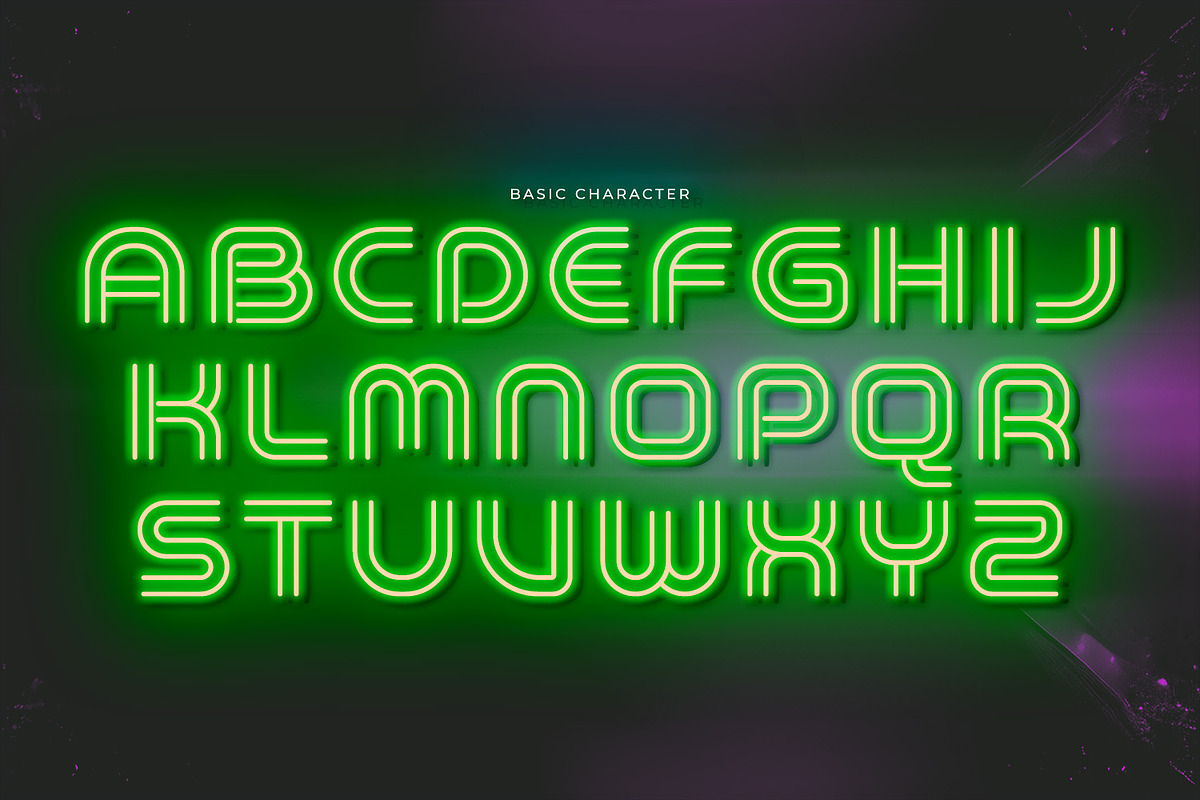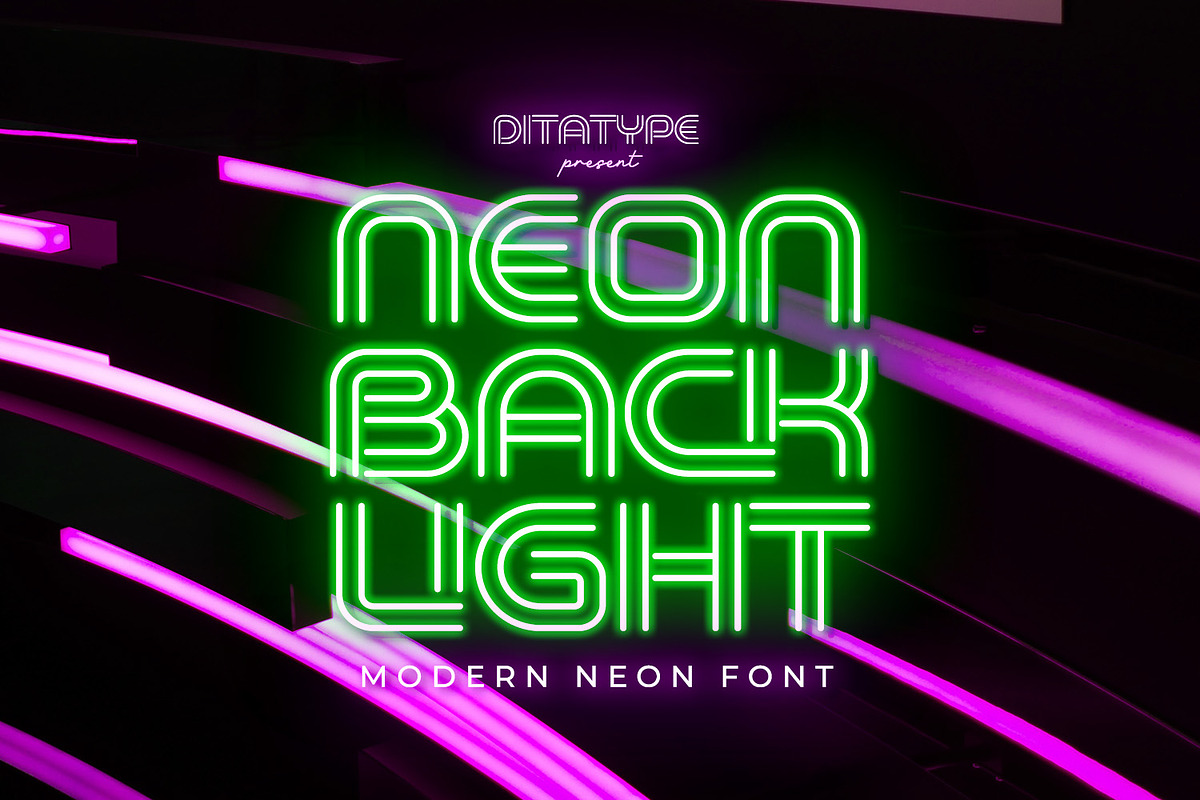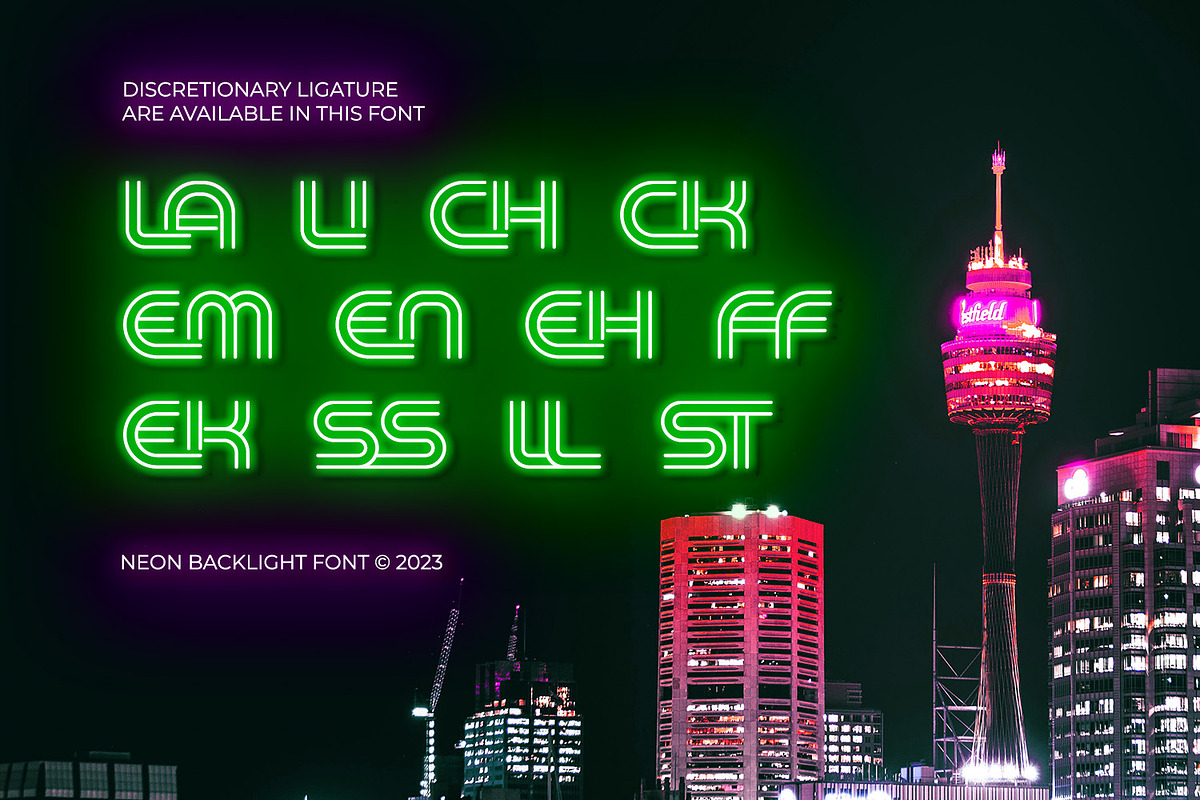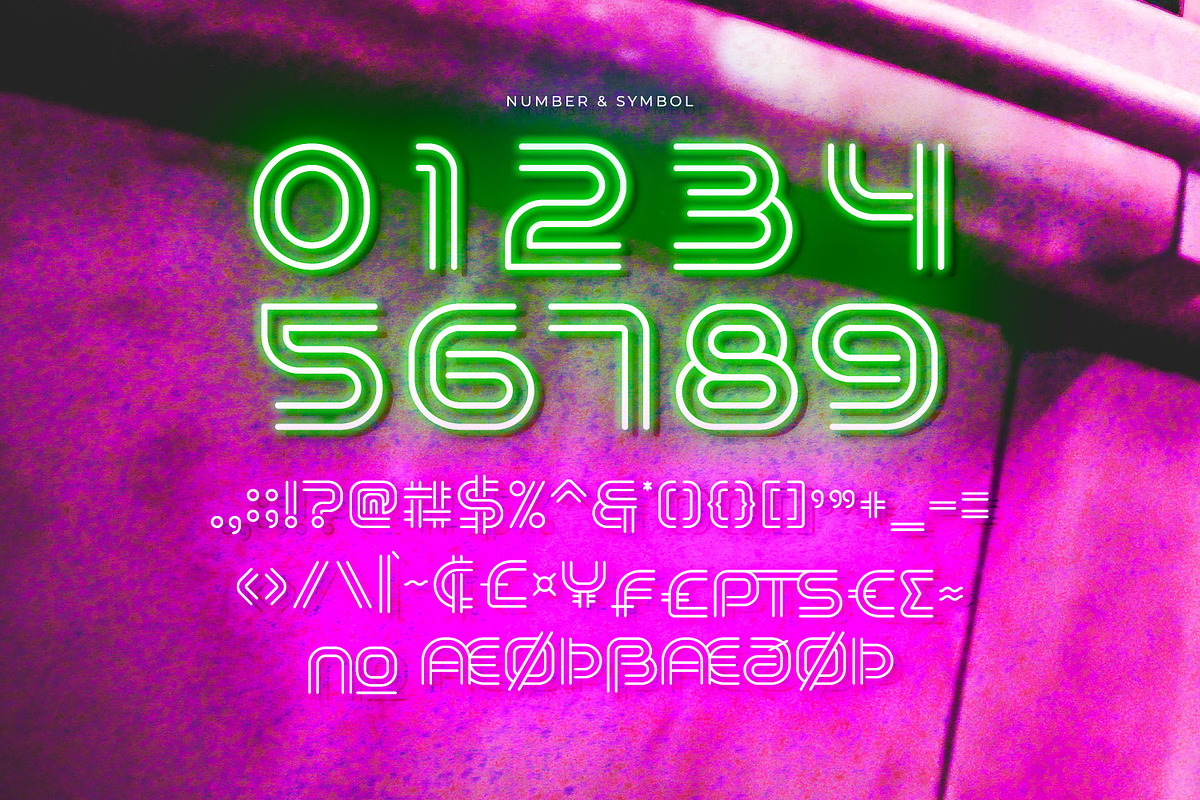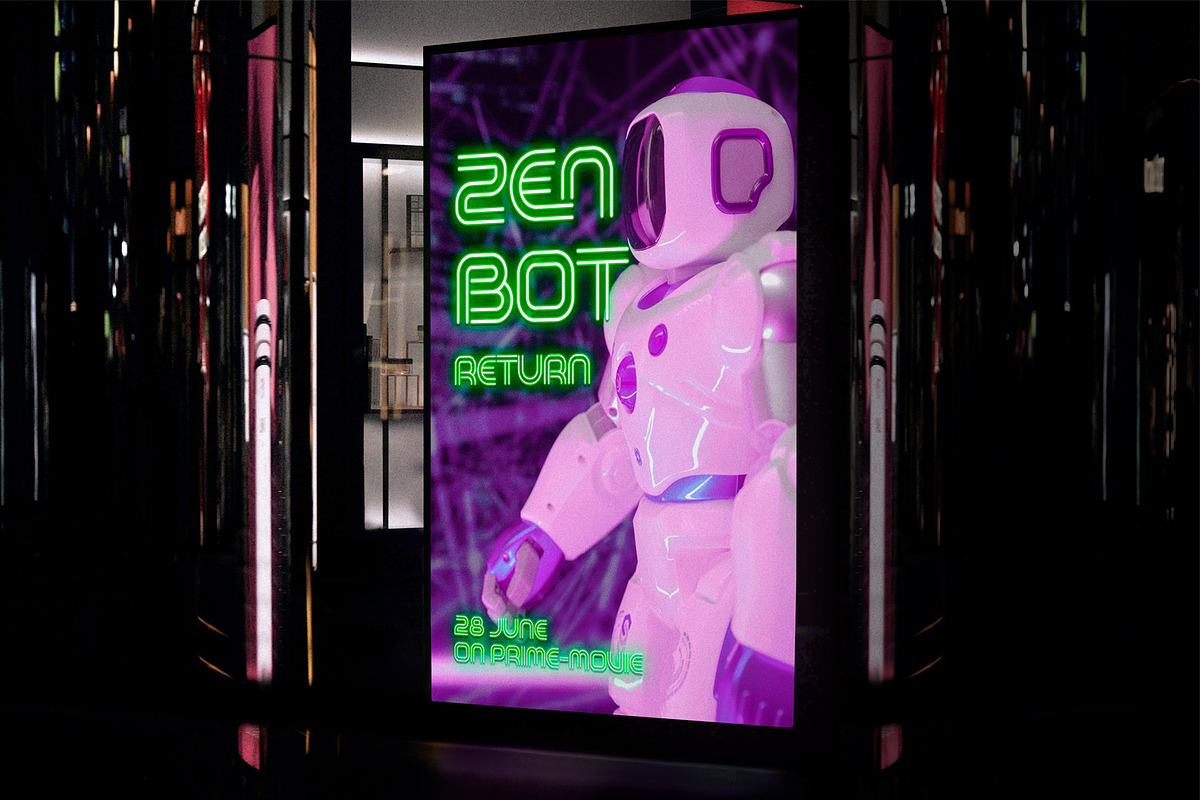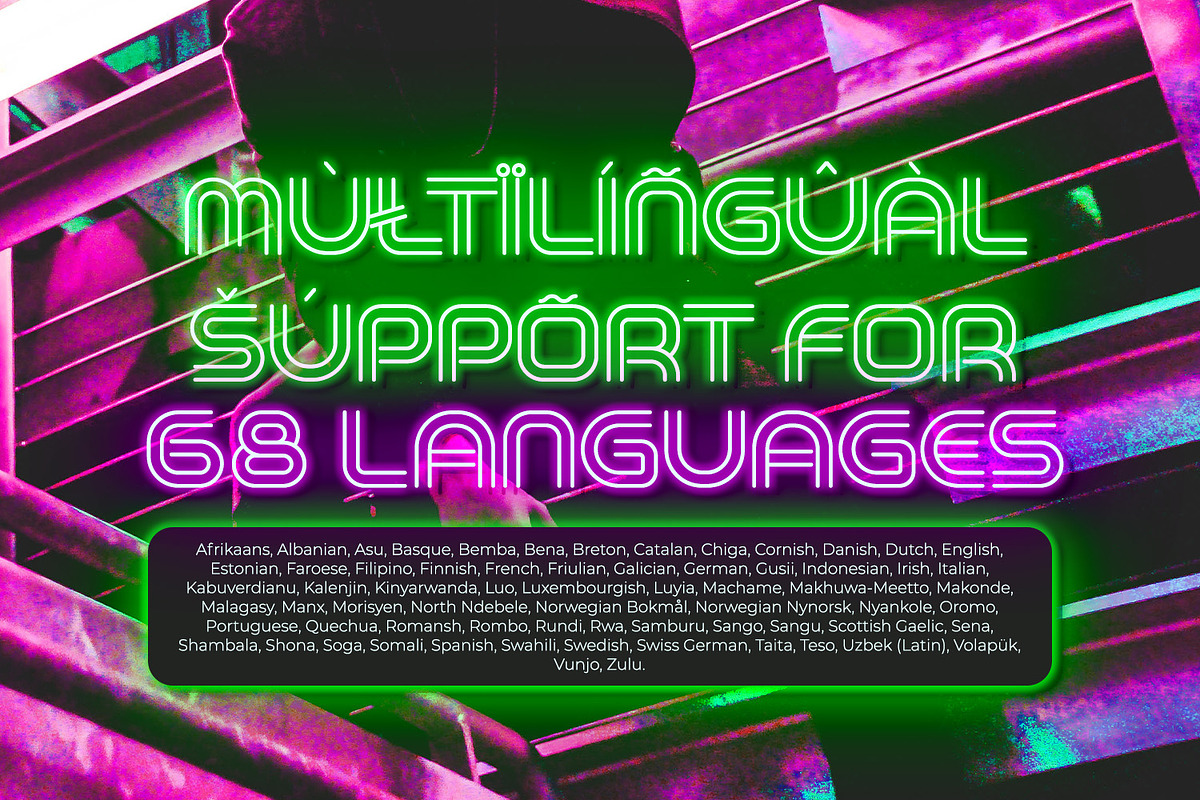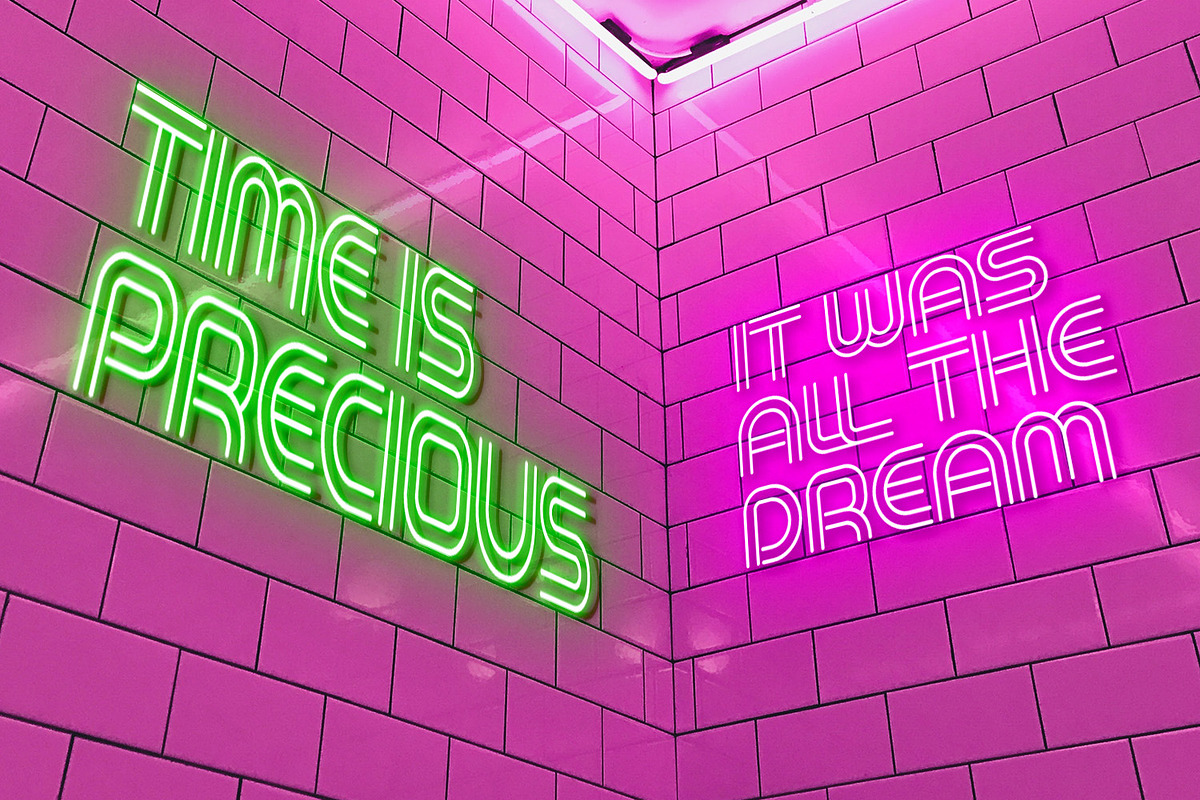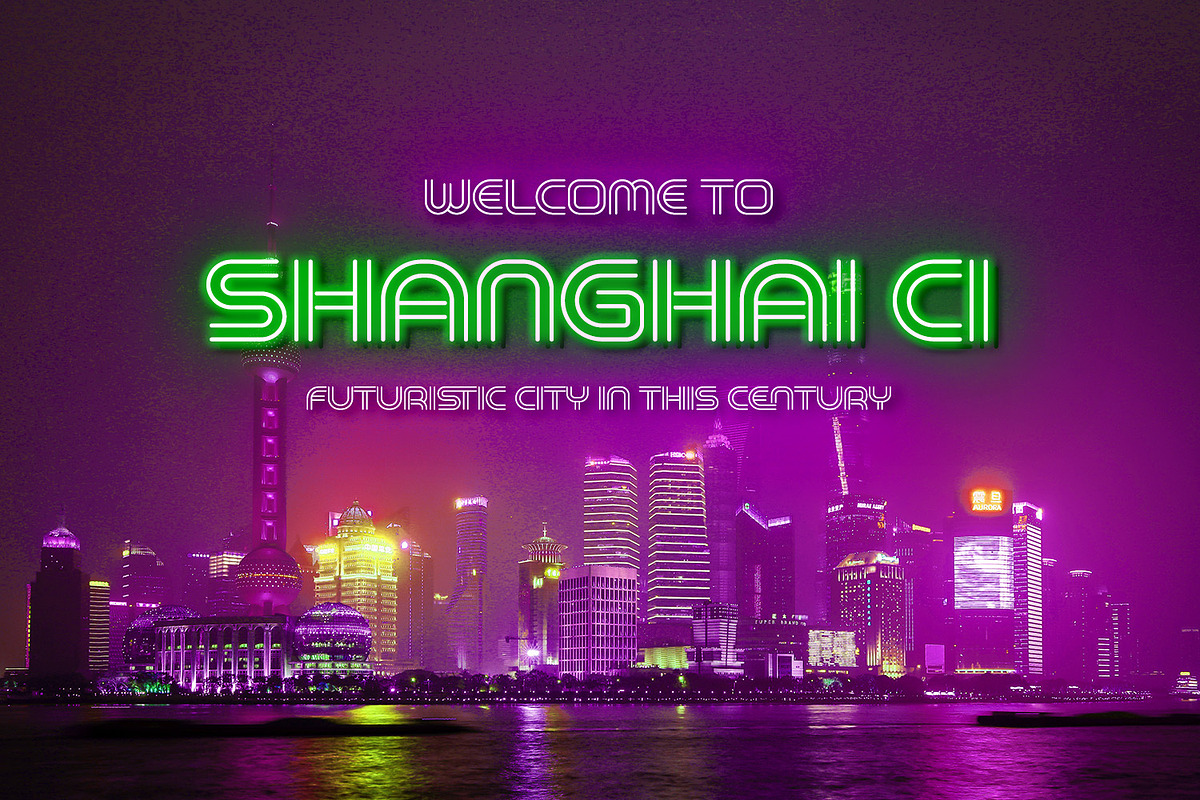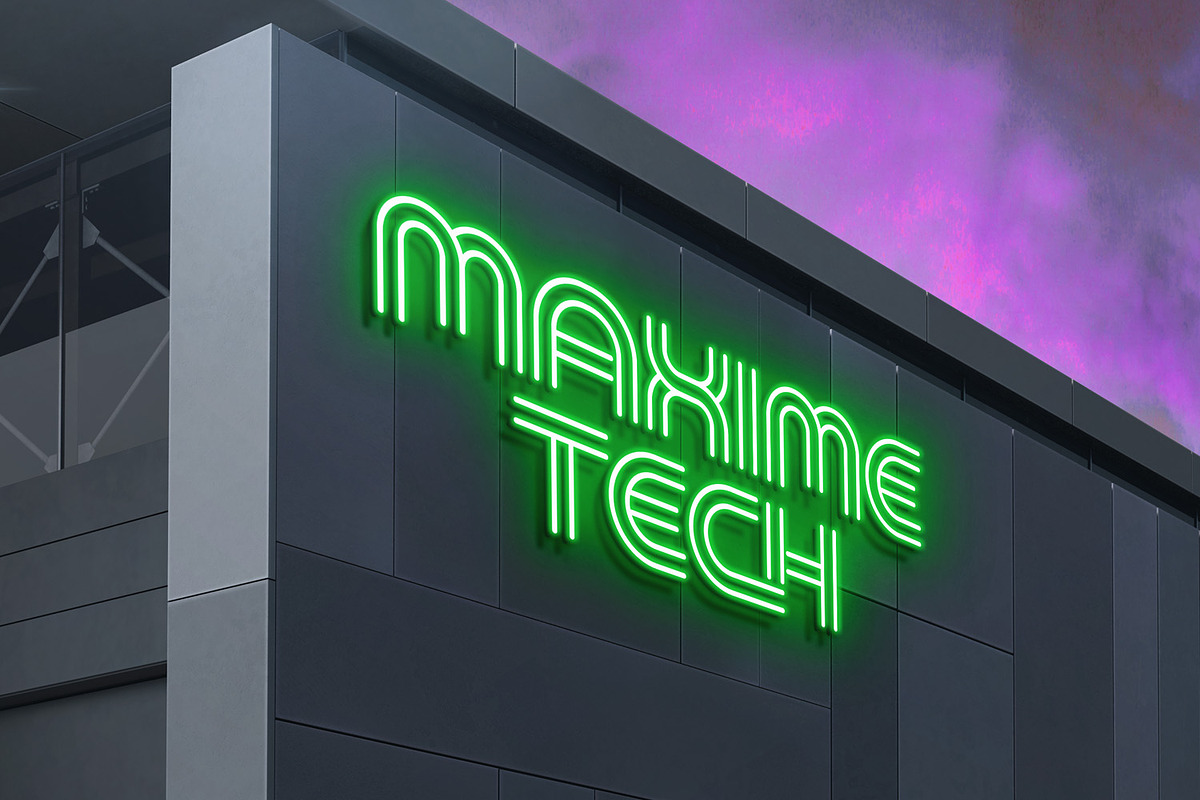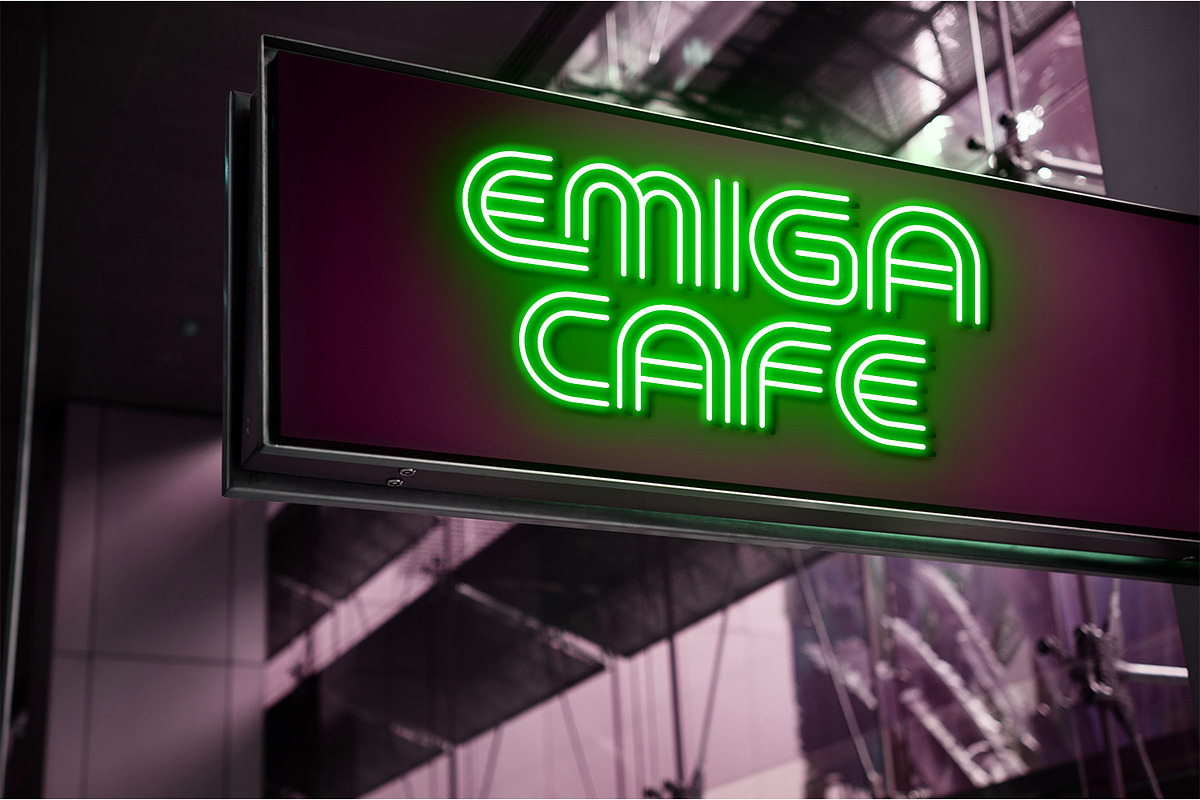
Neon Backlight
Neon Backlight is a stunning display font that brings the mesmerizing beauty of neon lights to your typography. With its bold uppercase letterforms and a luminous backlight, this typeface demands attention, creating a captivating visual experience that leaves a lasting impression. The defining feature of Neon Backlight lies in its vibrant neon backlight effect. Each letter is imbued with a radiant glow that casts a captivating hue, evoking the nostalgic charm of neon signs illuminating the night. The luminous backlight adds depth and dimension, creating a sense of depth that draws the viewer in. Inspired by the enchanting allure of neon lights, Neon Glow exudes a futuristic energy. The font captures the vibrant spirit of urban nightlife and the excitement of bustling city streets. The neon glow infuses each letter with an electrifying aura, creating a striking visual impact that is both contemporary and timeless. Each letter of Neon Backlight is carefully crafted to balance the neon aesthetic with legibility. The uppercase characters are bold and easily recognizable, ensuring your message remains clear and impactful. The neon backlight enhances the overall composition, making the font truly come alive with an irresistible glow.
Neon Backlight thrives in designs that embrace a dynamic and vibrant style. Whether you're creating posters, signage, logos, or digital artwork, this font will add a dazzling element that sets your project apart. It particularly shines in applications related to nightlife, entertainment, fashion, and retro-themed designs. The bold strokes and clean lines exude confidence, making this font perfect for headlines, titles, and statements that demand attention. Find out more ways to use this font by taking a look at the font preview.